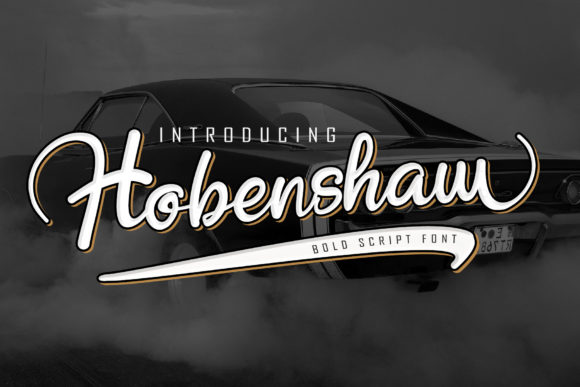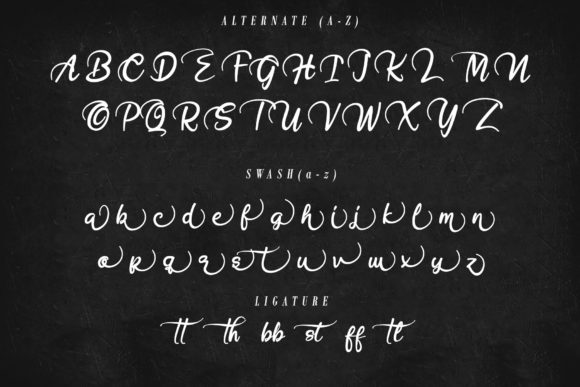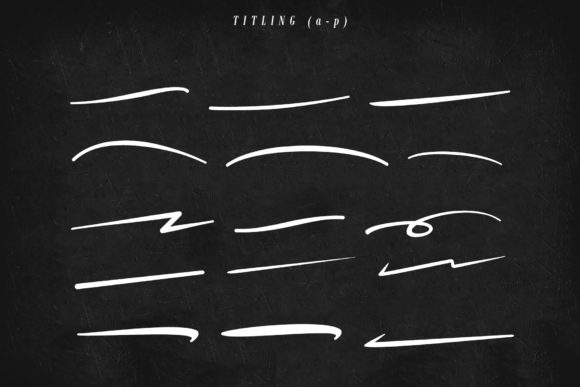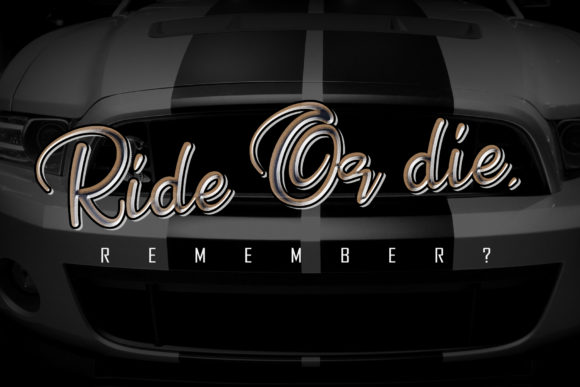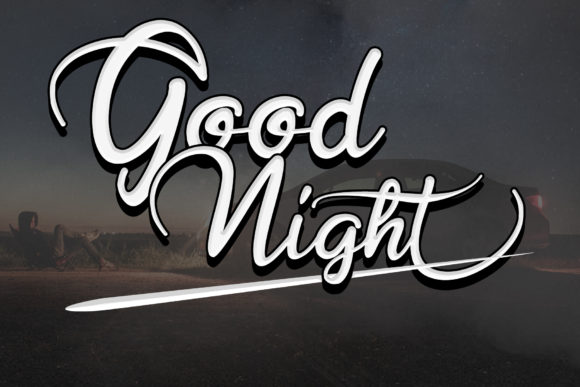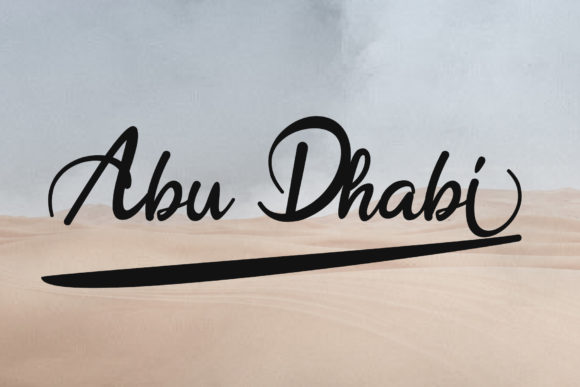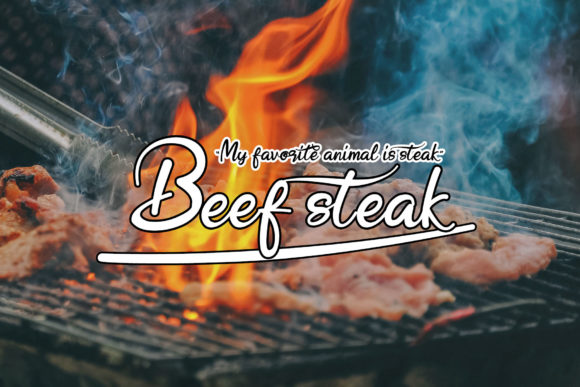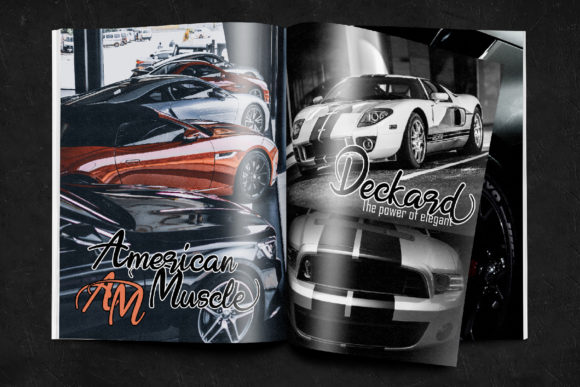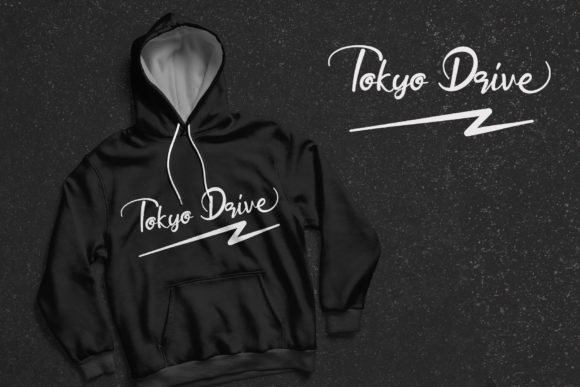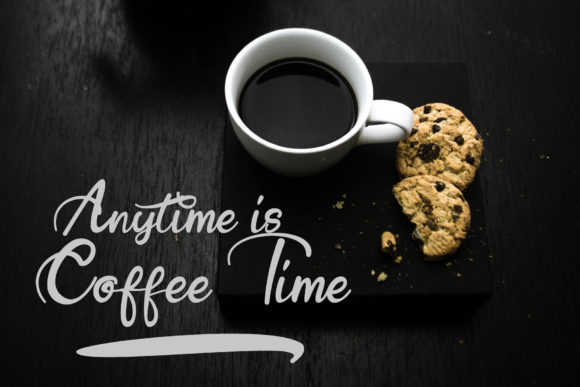
HomeScript FontsHobenshaw Font Script Fonts Hobenshaw Font FacebookXPinterestWhatsApp Hobenshaw Font Poster 2 Hobenshaw Font Poster 3 Hobenshaw Font Poster 4 Hobenshaw Font Poster 5 Hobenshaw Font Poster 6 Hobenshaw Font Poster 7 Hobenshaw Font Poster 8 Hobenshaw Font Poster 9 Hobenshaw Font Poster 10 Hobenshaw Font Poster 11 About Hobenshaw Font Hobenshaw is a bold and fun handwritten font with a lot of unique charm. Get inspired by its urban feel! DOWNLOAD ON CREATIVE FABRICAThis font is sold and delivered by Creative Fabrica. Font Canyon may earn a commission if you buy through this link. People also explored Paper Glue Font Love Family Font Lemonella Font Codeplay Font Harvest Wishes Font Cute Monster Font Easter Egg Monogram Font Ricard Font Cabagge Font 358 0 TagsHobenshaw Font Previous articleNervous FontNext articlePerfect Redemption Duo Font LEAVE A REPLY Cancel reply Comment: Please enter your comment! Name:* Please enter your name here Email:* You have entered an incorrect email address! Please enter your email address here Website: Save my name, email, and website in this browser for the next time I comment. Personal Use Free Short Message Personal Use Free Read more about this font Densmore Personal Use Free Read more about this font Quentin Personal Use Free Read more about this font Gagalin Personal Use Free Read more about this font BLOG Exploring Font Trends Shaping Communication in the Digital Era Fonts, like all design elements, are subject to trends. They play a crucial role in communicating a brand's personality,... Best Fonts for T-Shirt Design – Top 2025 Picks How to Cut Any Font on Cricut: Convert a Font to SVG (Free) Fonts That Capture the Spirit of New York City